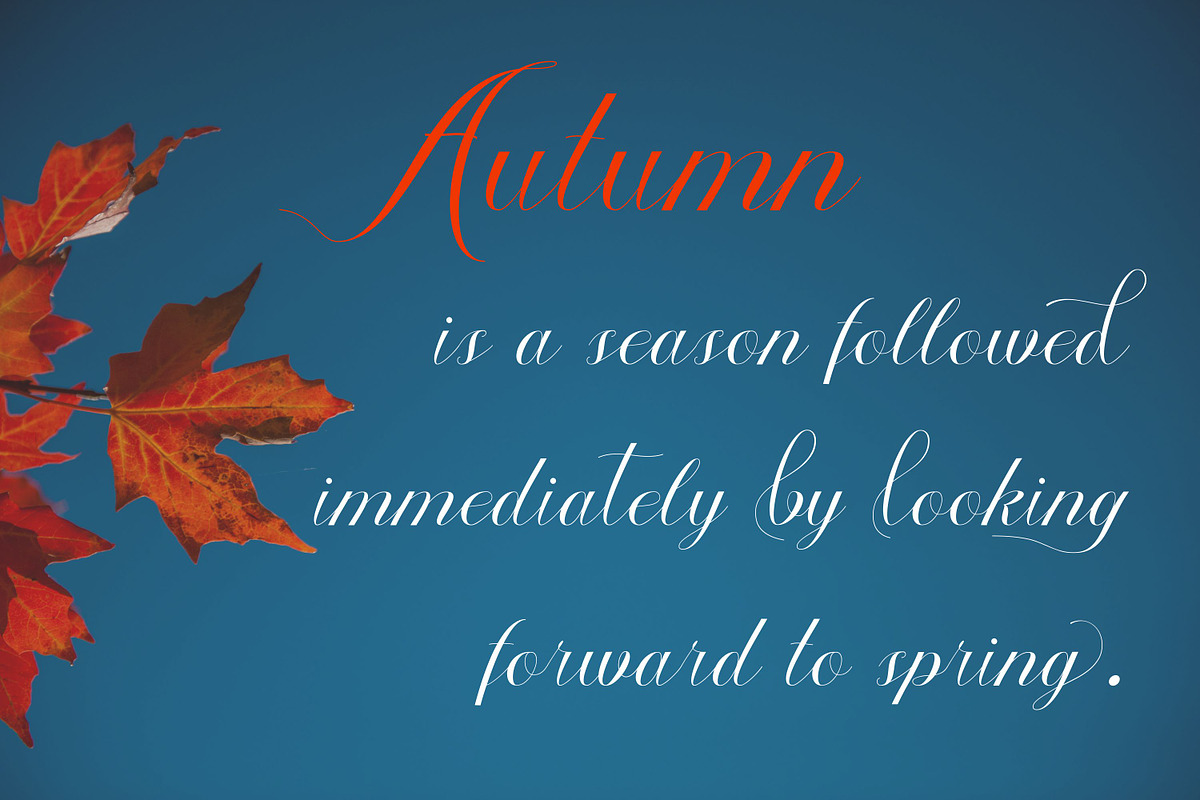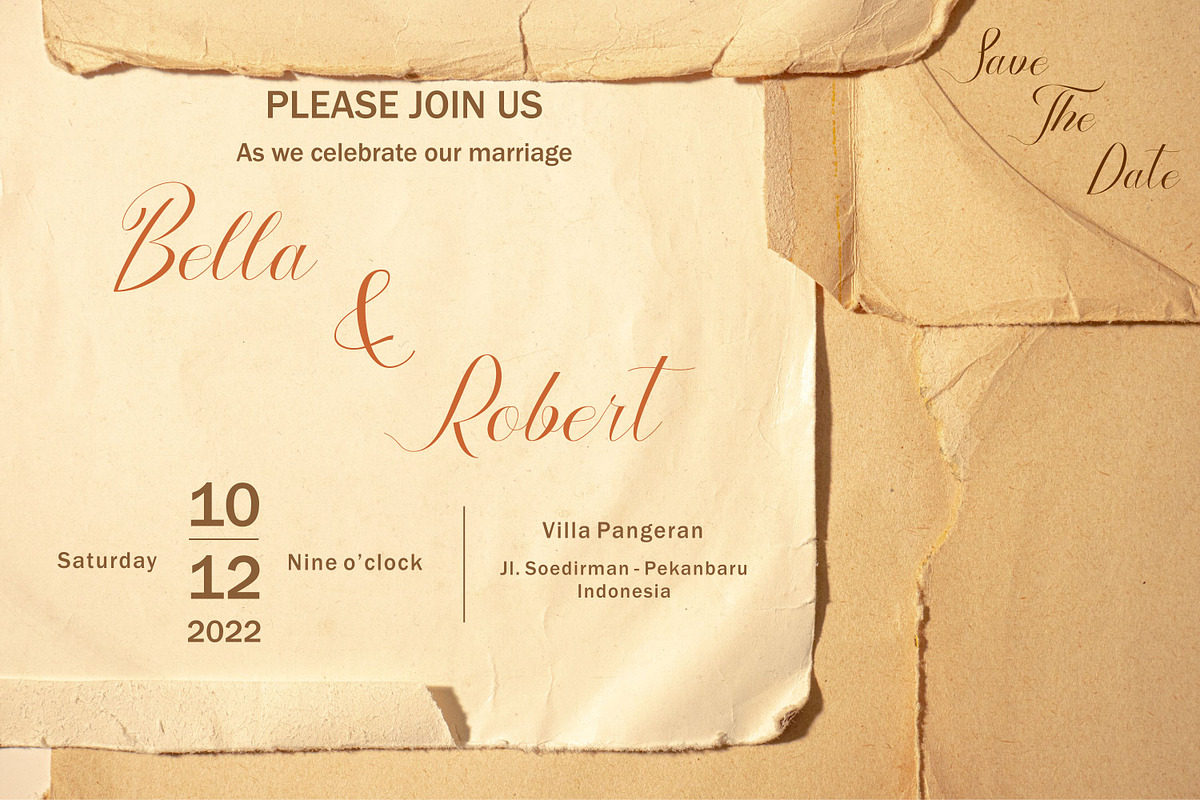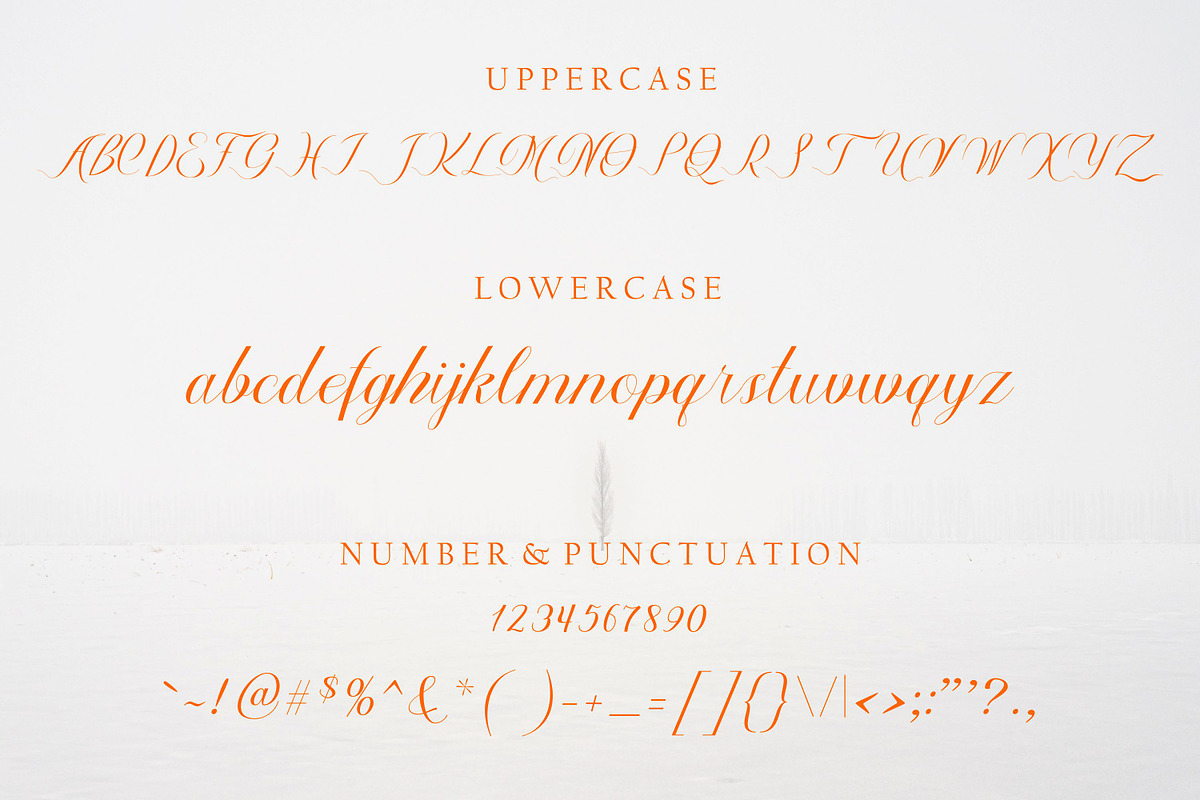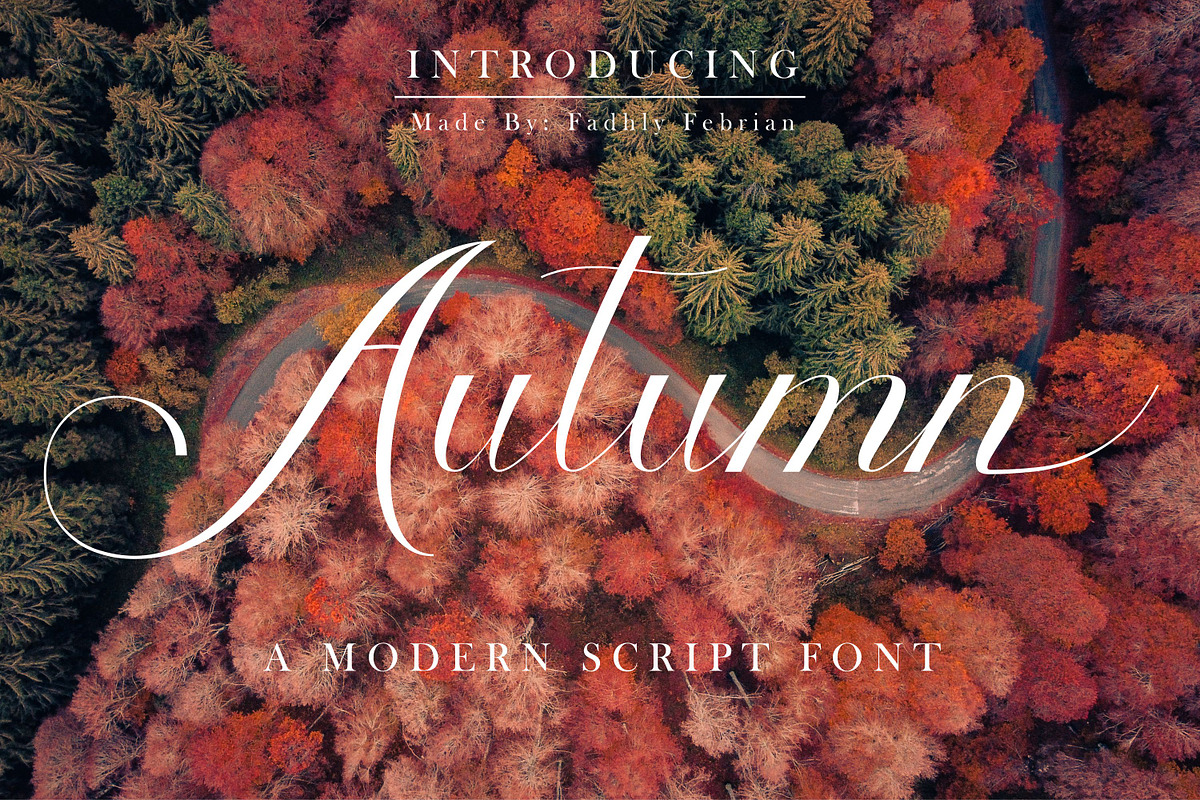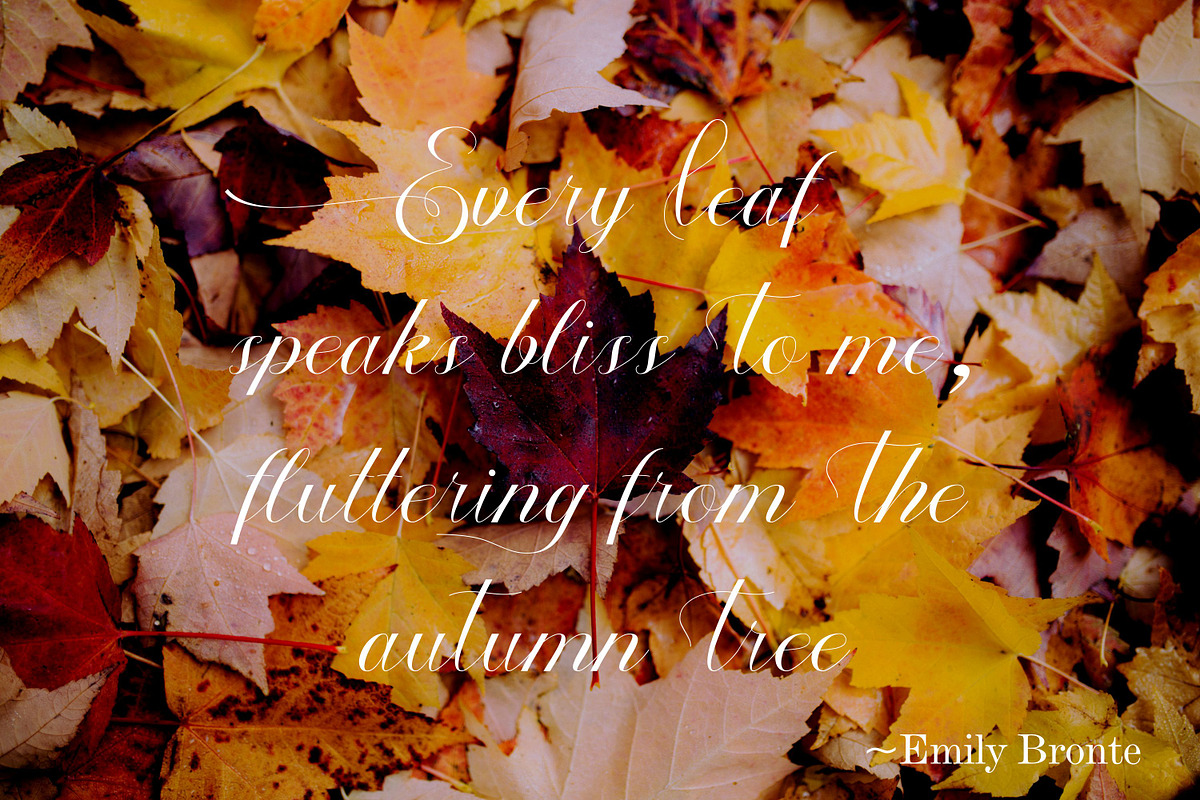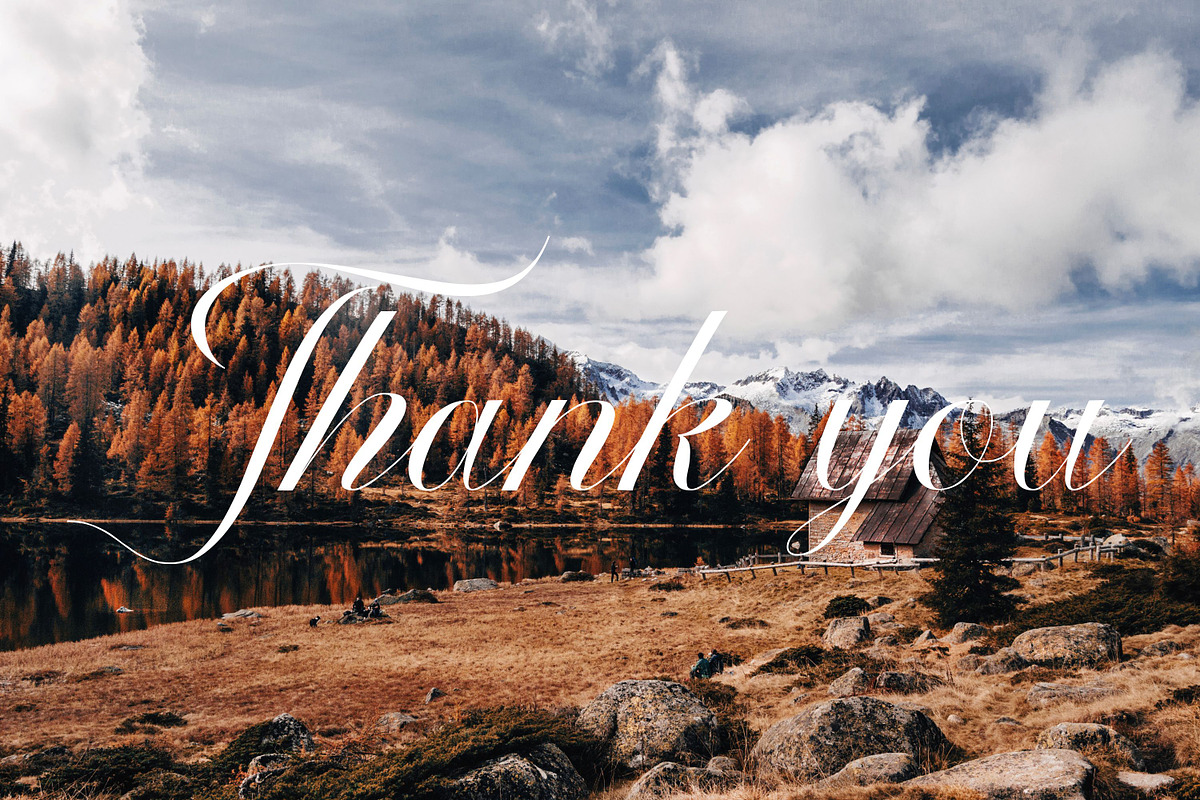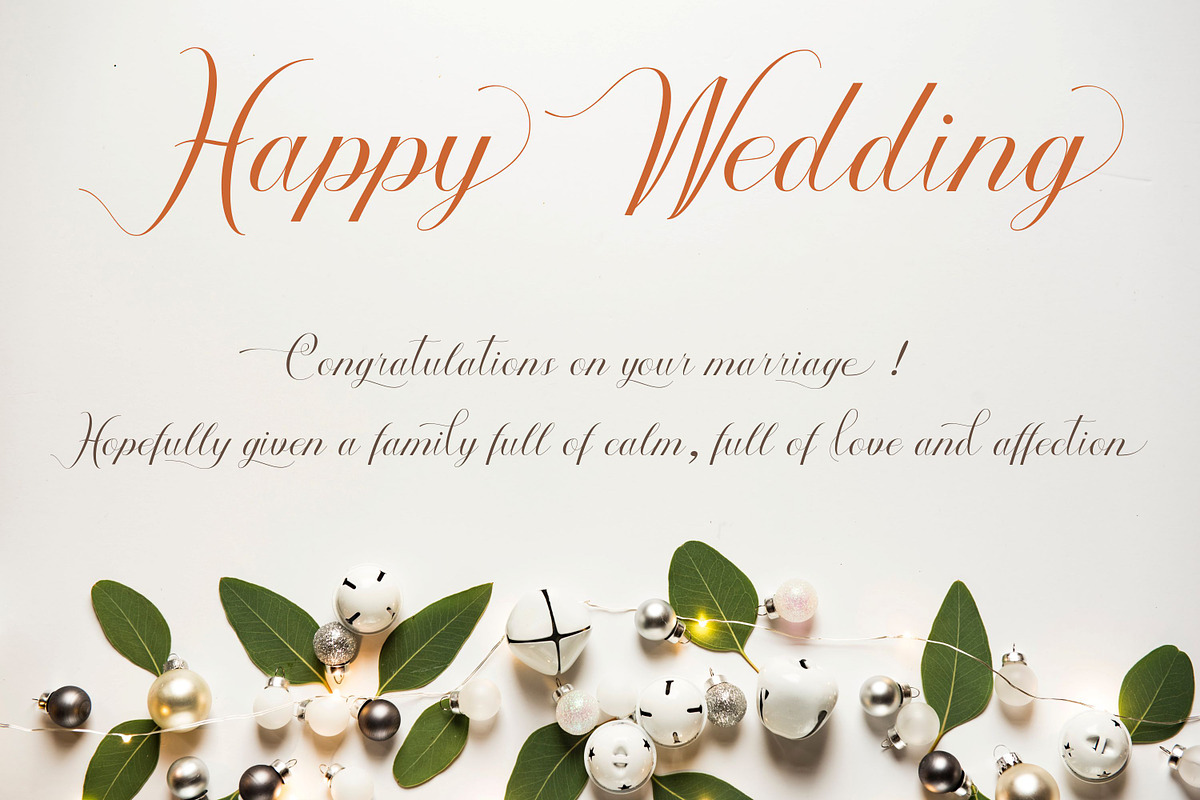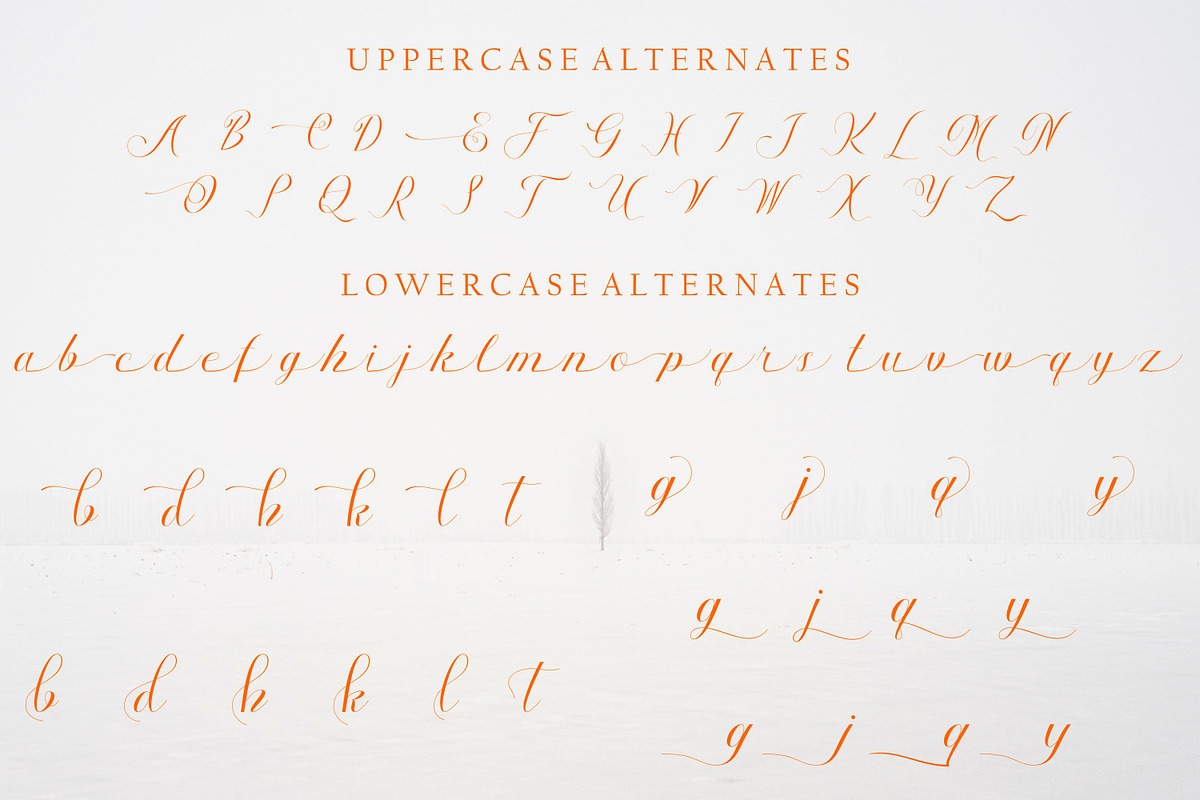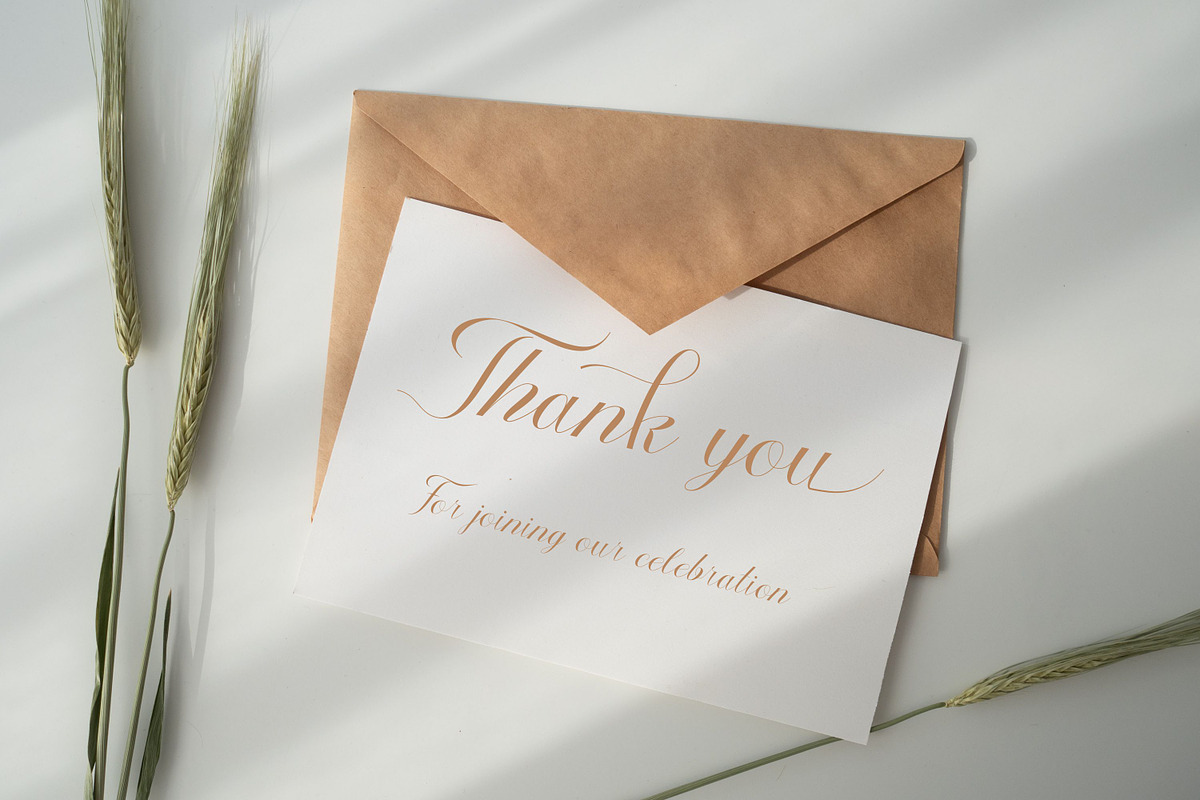
Autumn
Autumn Script is a modern calligraphy font, carefully crafted to look beautiful and elegant. And also with OpenType features for alternative font choices. This font is perfect for any project as wedding invitation, branding projects, Logo design, Apparel Branding, packaging, magazine titles, birthday invitation, advertisements, T-shirts, postcards etc.
Font features :
- Uppercase beginning swash
- Lowercase ending swash